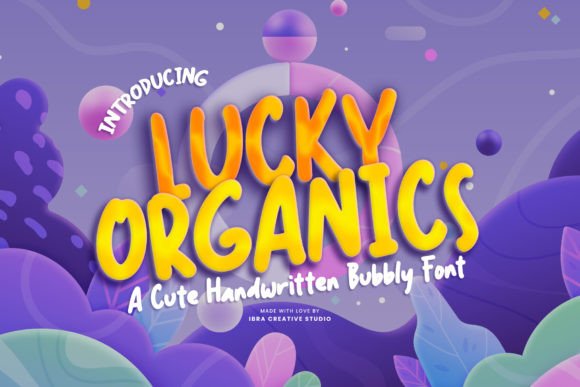
Step into the world of Lucky Organics Font - a delightful display font that exudes sheer charm and playfulness. This captivating handwritten bubble font, designed by the skilled ibracreative, will ignite your creativity and add a touch of adorable magic to your projects.
Lucky Organic's whimsical and rounded letterforms dance across the page, capturing the essence of joyful innocence. Imagine your words wrapped in delightful bubbles, creating a visual symphony of cheerfulness and wonder. This font is a true celebration of life's simple joys, evoking a sense of carefree happiness.
With Lucky Organics, you can effortlessly transform any text into a vibrant display of creativity. Its organic curves and friendly design make it the perfect choice for children's books, playful logos, vibrant signage, and more. Picture your designs bursting with personality, captivating audiences with their cheerful charm.
Lucky Organics Font is your key to creating captivating designs that touch the hearts of your audience. Its ability to infuse joy and light-hearted wonder into any project is truly remarkable. Embrace the magic of Lucky Organics and let your creativity soar.
Embrace the Lucky Organics Font today and embark on a journey of creative exploration. Experience the pure delight of crafting designs that radiate charm, playfulness, and an irresistible sense of childlike wonder.